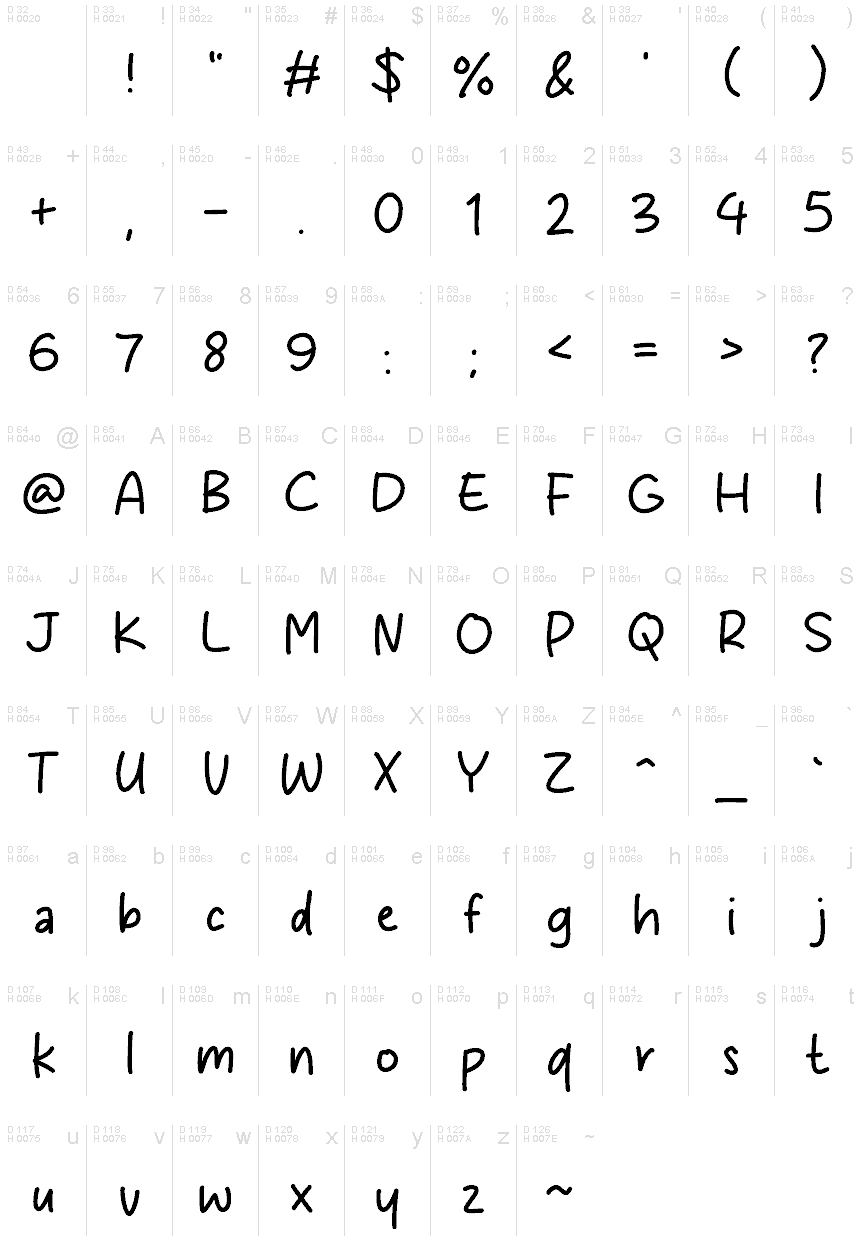
Sky Moon
Sky Moon font, designed by MJType, seamlessly combines a variety of aesthetics and styles to create handwritten style letters. Each glyph is unique and adds an organic feel which offers a subtle human touch to any project. They are approachable and friendly which suits personal projects but can also be used in creative business presentations or branding designs for the right sort of companies.
The free handwritten font has been crafted with precision for posters, product packaging, business cards, labels, book/magazine covers, blogs or social media websites with posts on Instagram or Facebook. Its casual appearance which also has its modern aesthetic makes it fitting for each of these project types as well as many more.